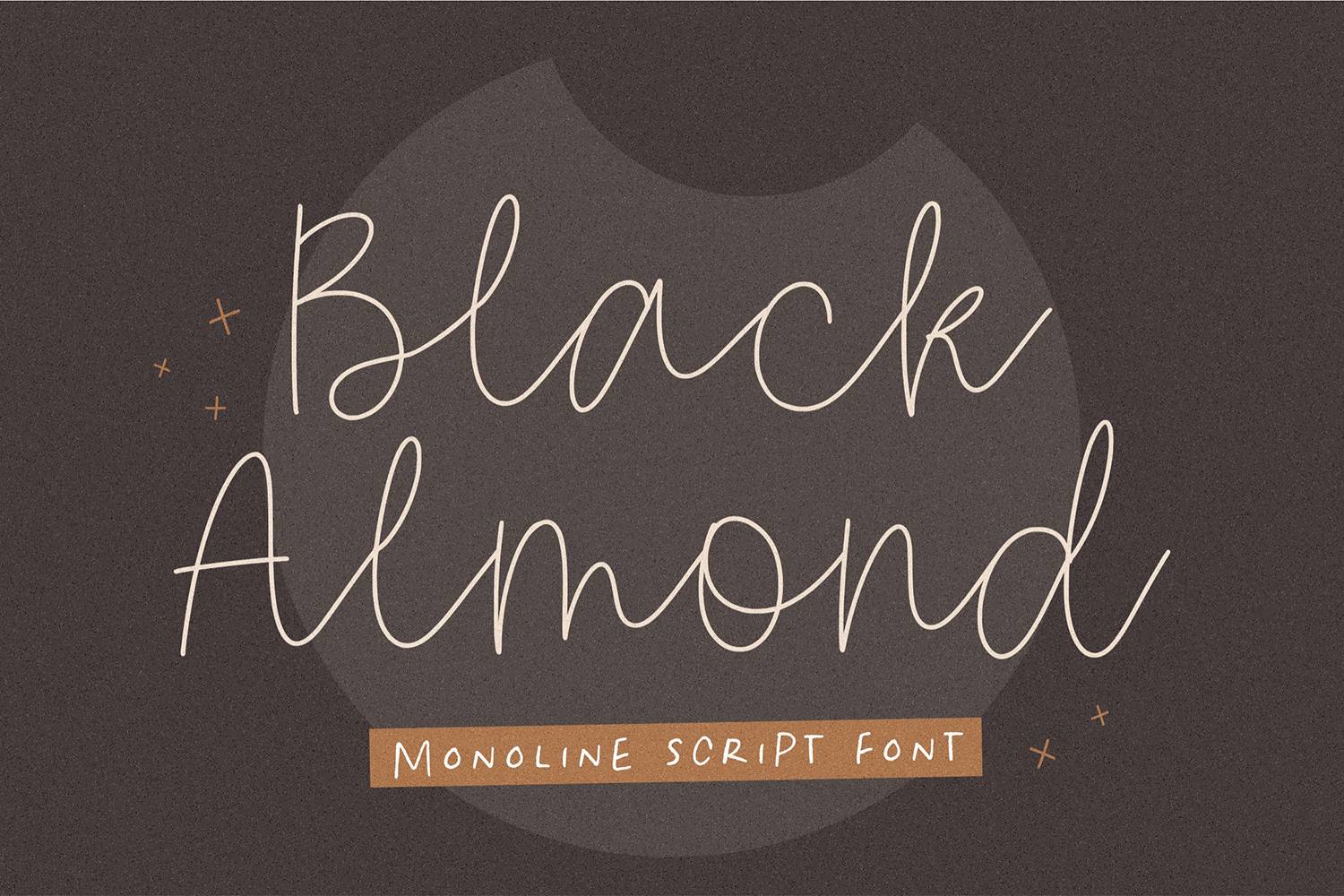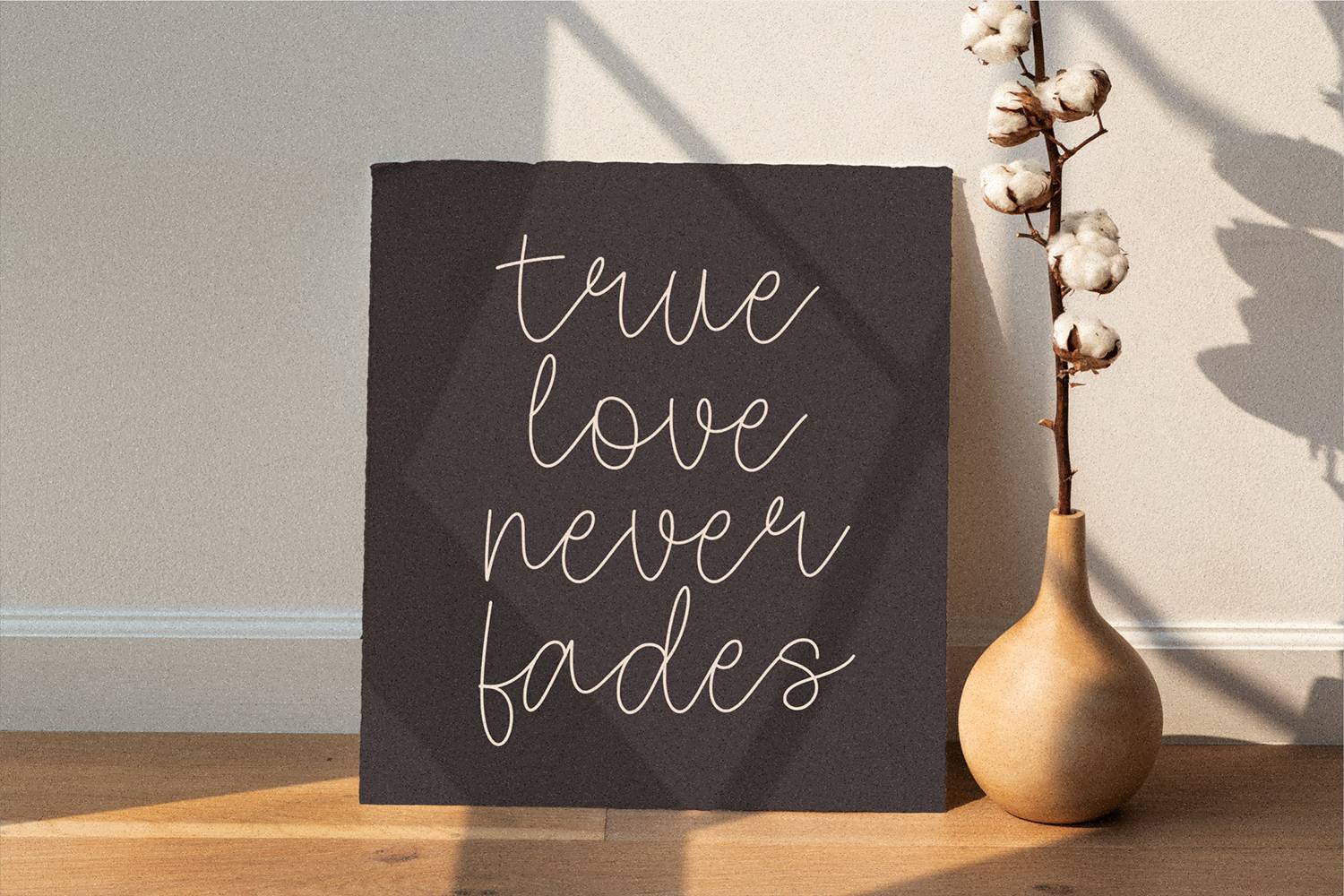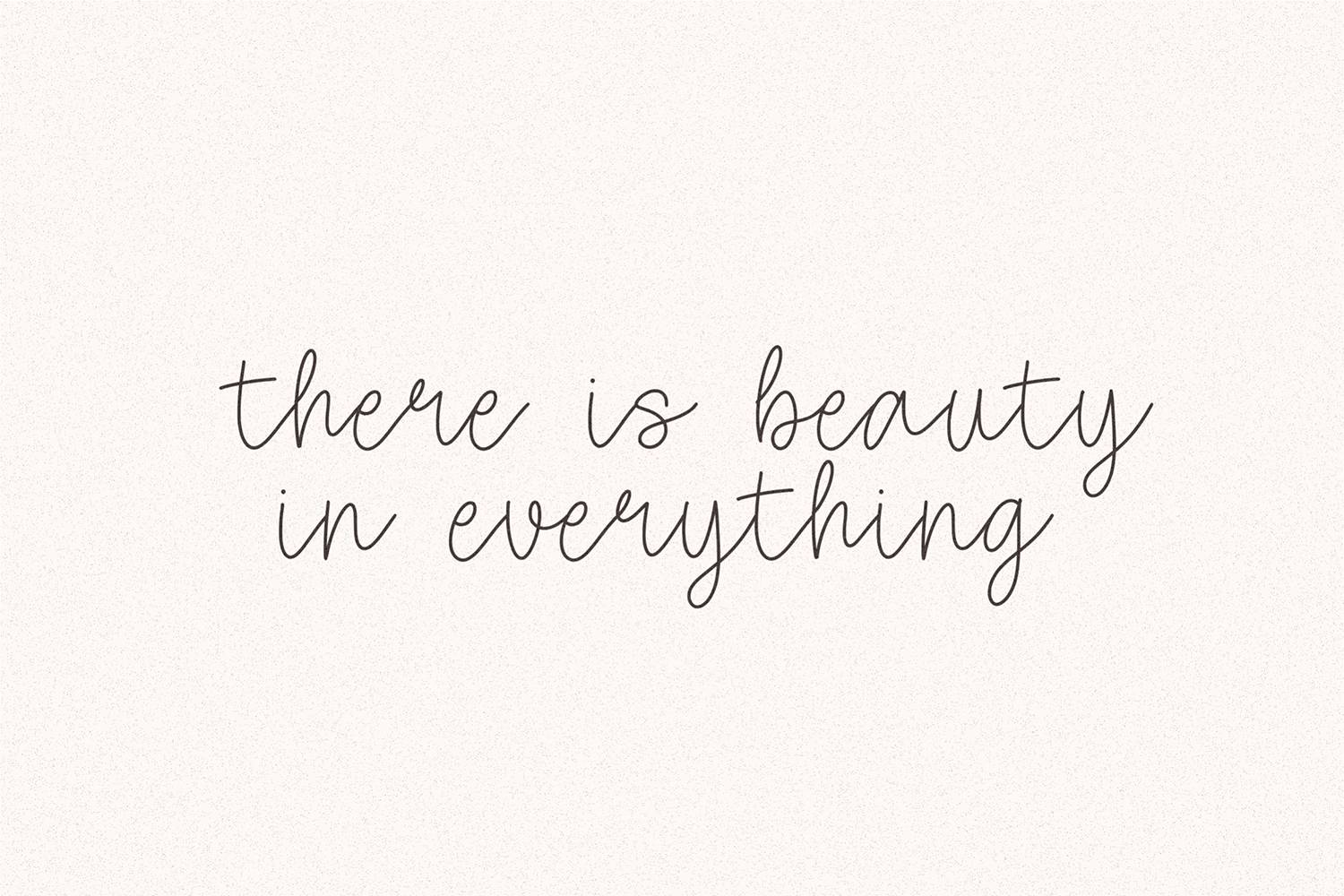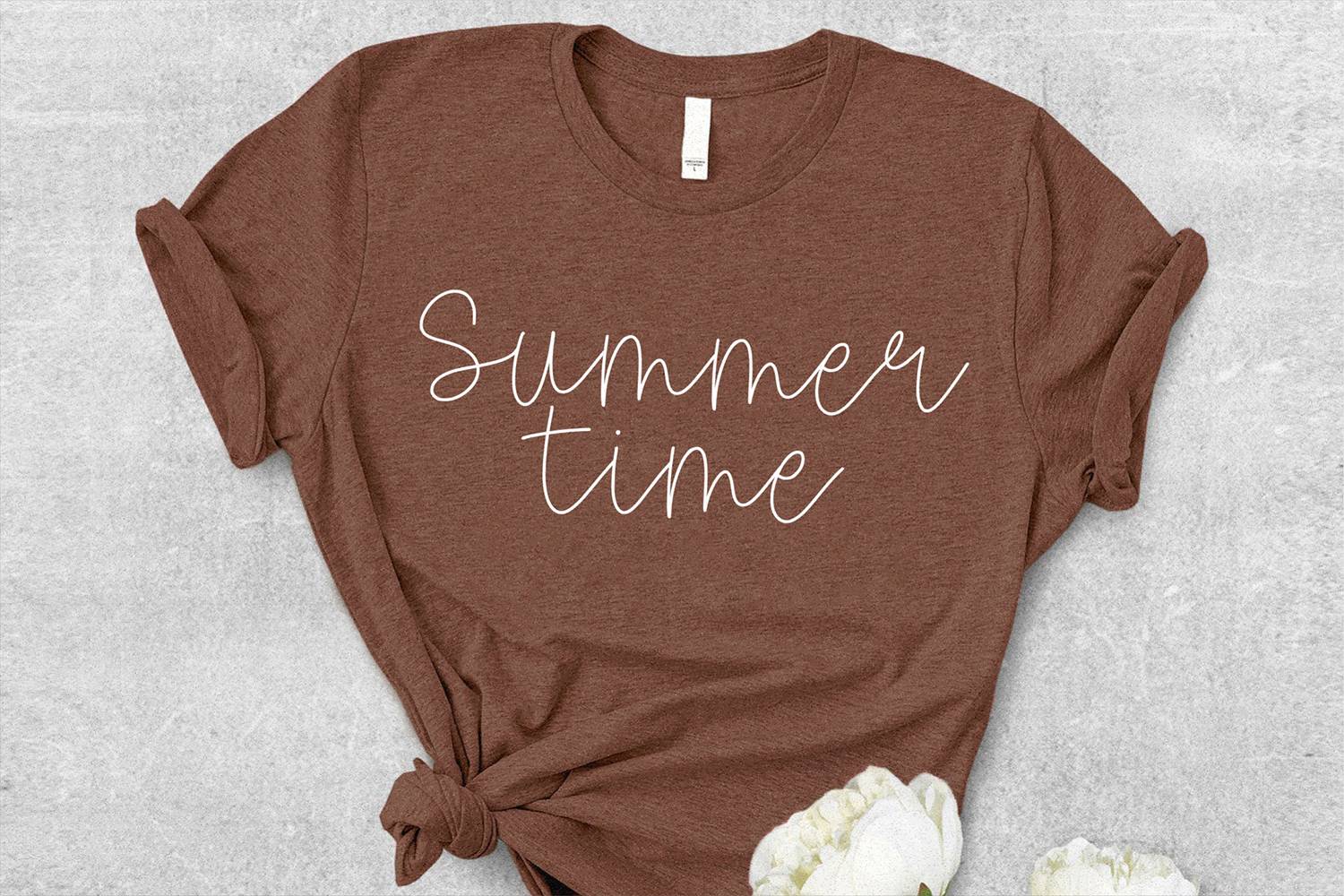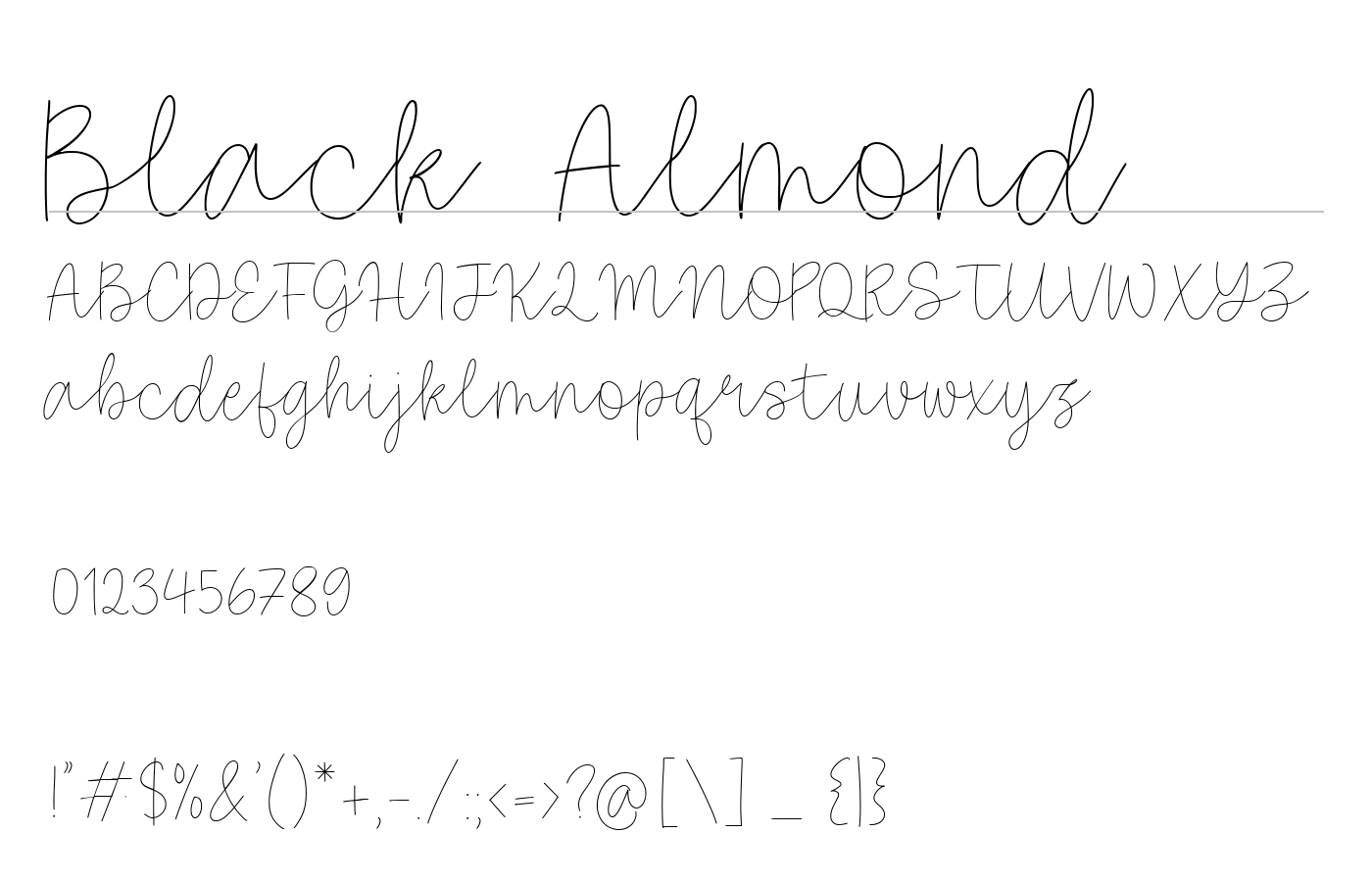
Black Almond is a delicate, hand-drawn script font characterized by its thin, flowing lines and whimsical letterforms that convey a casual yet elegant feel. Its light weight and airy spacing make it perfect for creative projects needing a personal, friendly touch, such as invitations, branding, and editorial designs. This font shines in applications where a gentle, artsy style is desired, lending warmth and individuality without overwhelming the design.
Black Almond Font
About Black Almond Font